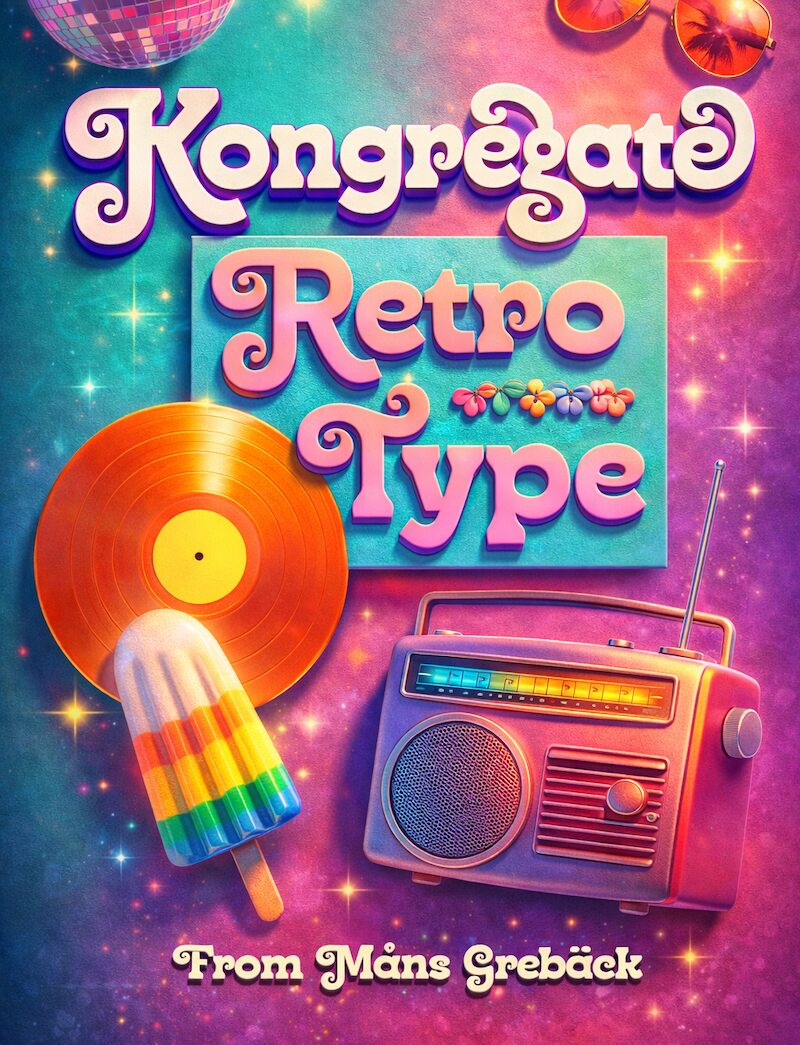
Kongregate font designed by Måns Grebäck is a free font intended for personal use only. The typeface combines the retro aesthetic of groovy fonts with a futuristic, video-game-inspired twist. It carries a strong personality and is made more distinct using its striking geometric shapes, clean lines, and readability. A lovely harmonious flow is visible in its varying character designs.
This font will be the perfect tool with which to design larger captures such as logos, branding, book covers, posters, website designs, social media posts, etc. Its simplicity is distinguishing, and its uniqueness will grab the attention of your audience.
Kongregate is a bold display typeface featuring playful curls and a sturdy, rounded design. Its retro shapes evoke a cheerful and confident ambiance, embodying a musical rhythm that maintains the letters' liveliness without veering into chaos.
The font's appearance is both heavy and compact, yet softened by decorative terminals that impart a unique personality and warmth.